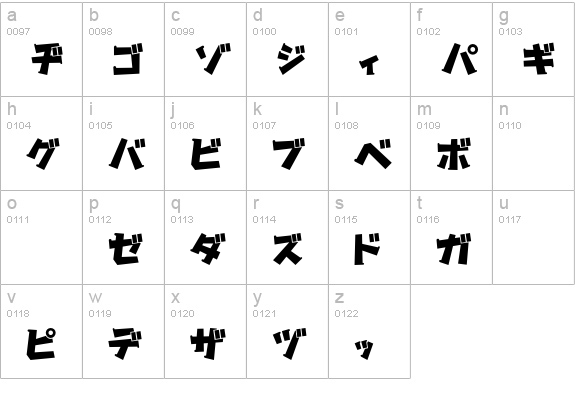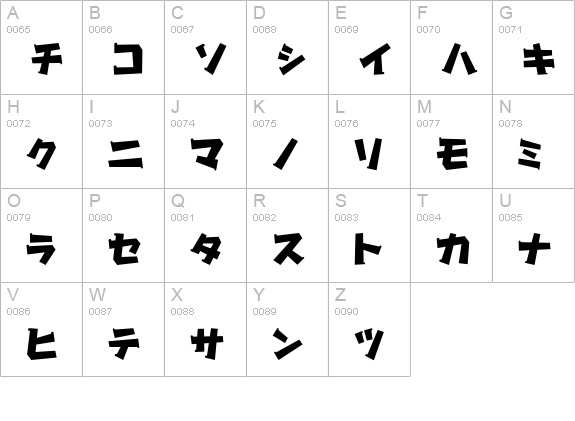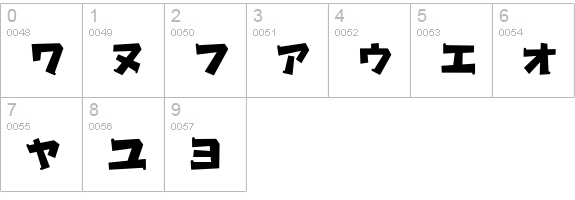
Gachapon-katakana Font Details
Introducing Gachapon-katakana font, a captivating typographical masterpiece that effortlessly combines modern aesthetics with the charm of traditional Japanese katakana characters. This enchanting font is meticulously crafted to bring a touch of elegance and authenticity to your design projects. Gachapon-katakana font boasts a seamless blend of sleek lines and intricate strokes, resulting in a visually captivating display that is bound to leave a lasting impression. The carefully designed characters exude a sense of sophistication, making them perfect for a wide range of creative endeavors, from advertising campaigns to logo designs, and everything in between. What sets Gachapon-katakana font apart from the rest is its versatility and user-friendliness. Whether you're a seasoned designer or just starting your creative journey, this font makes it effortless to create stunning visuals. The well-defined characters ensure readability, while the unique design elements add a touch of flair and individuality to your projects. And the best part? Gachapon-katakana font is freely available to download at FontsMarket.com. This means that you can take advantage of this extraordinary font without any financial constraints, allowing you to unleash your creativity without limitations or restrictions. It's like having a hidden treasure trove of design possibilities right at your fingertips. So, embrace the allure of Gachapon-katakana font and elevate your designs to new heights. Whether you're designing for personal or commercial purposes, this font is sure to captivate your audience and make your creations stand out from the crowd. Download it today from FontsMarket.com and embark on a design journey that is both mesmerizing and free.